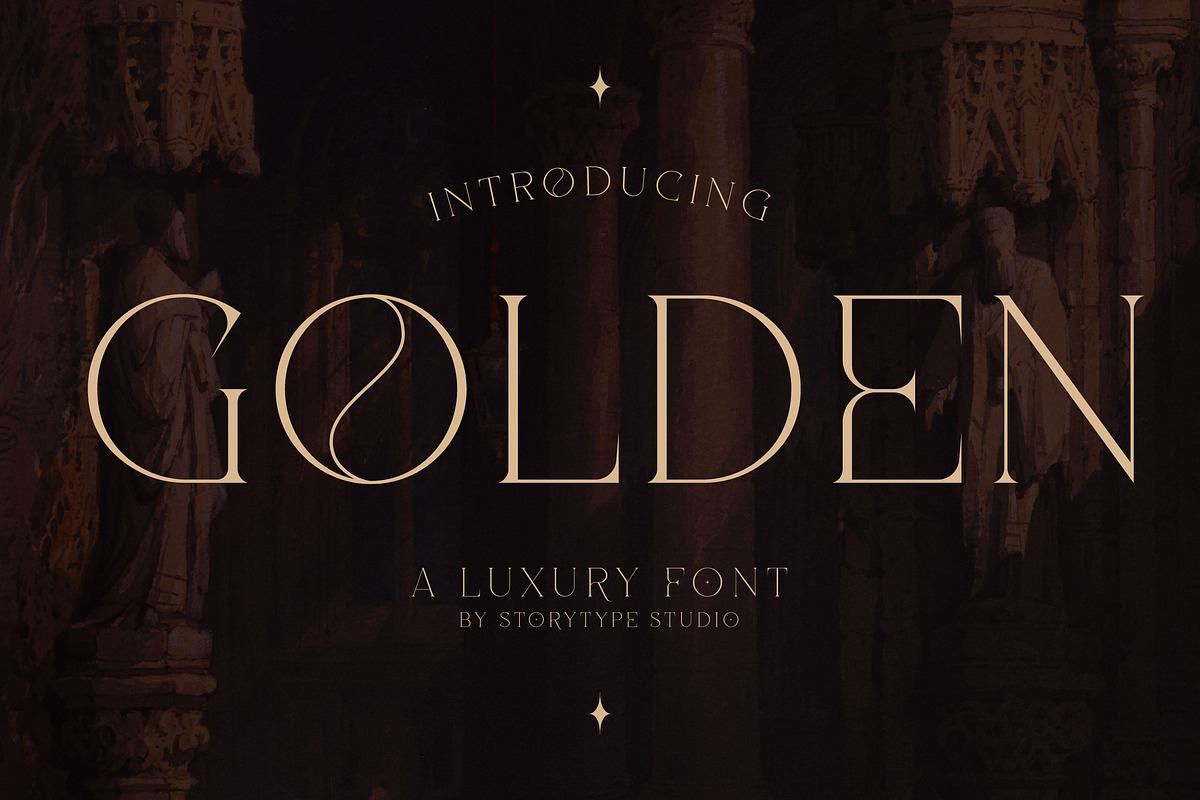
Golden Luxury Font Free Download
Golden Luxury Font Free Download is an elegant and sophisticated typeface that exudes luxury and refinement. With its smooth curves, high-contrast strokes, and regal character, this font is perfect for high-end branding, wedding invitations, luxury product packaging, and exclusive promotional materials.
Its classic design brings a timeless, glamorous touch to your typography, making it ideal for any project that requires an upscale, prestigious feel. Whether you’re creating a brand identity, crafting a luxurious event invitation, or designing premium merchandise, Golden Luxury Font Free Download adds elegance and grace to every word.